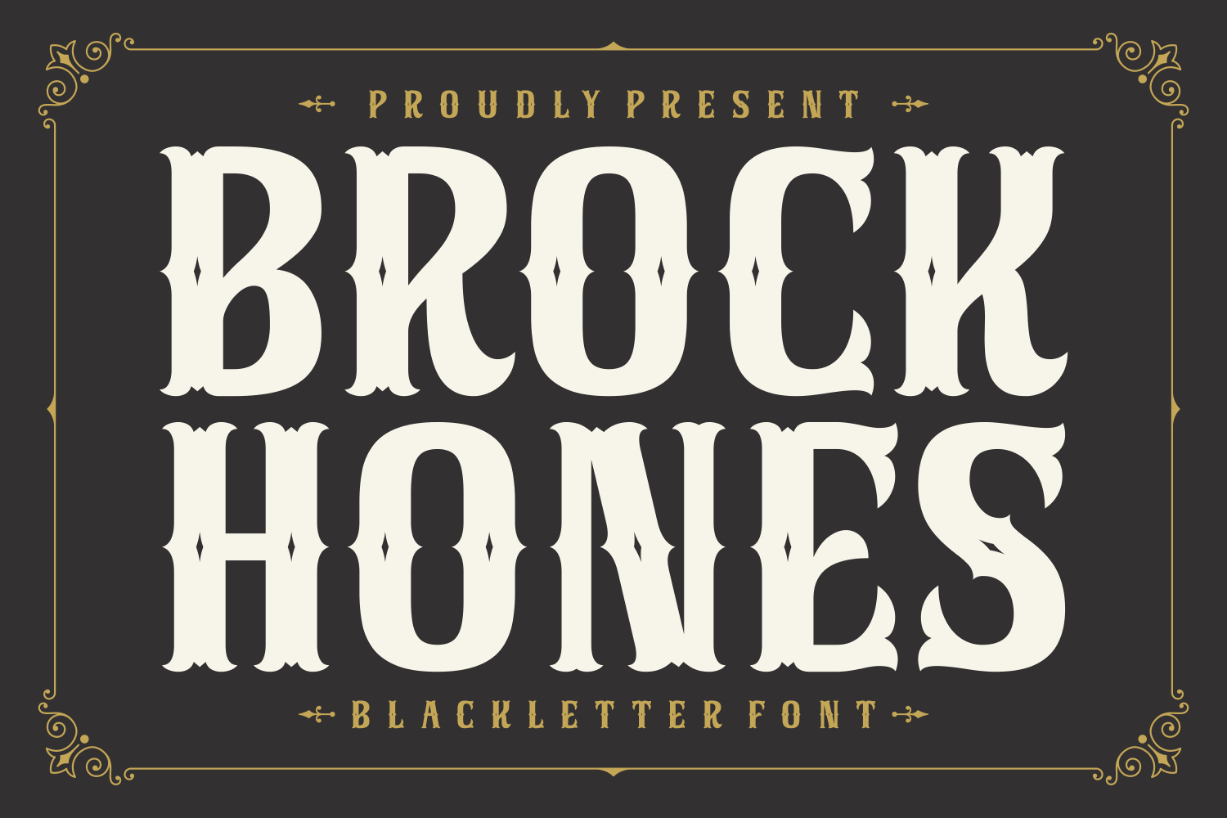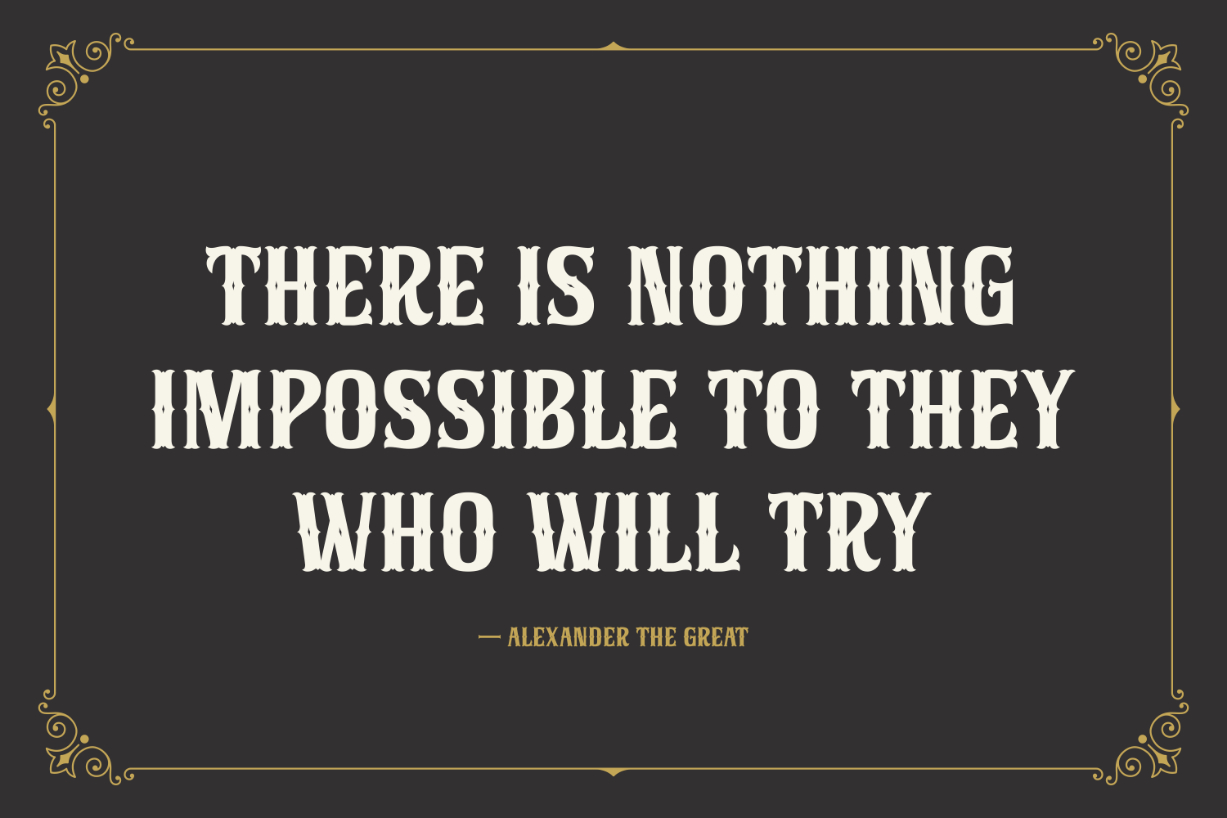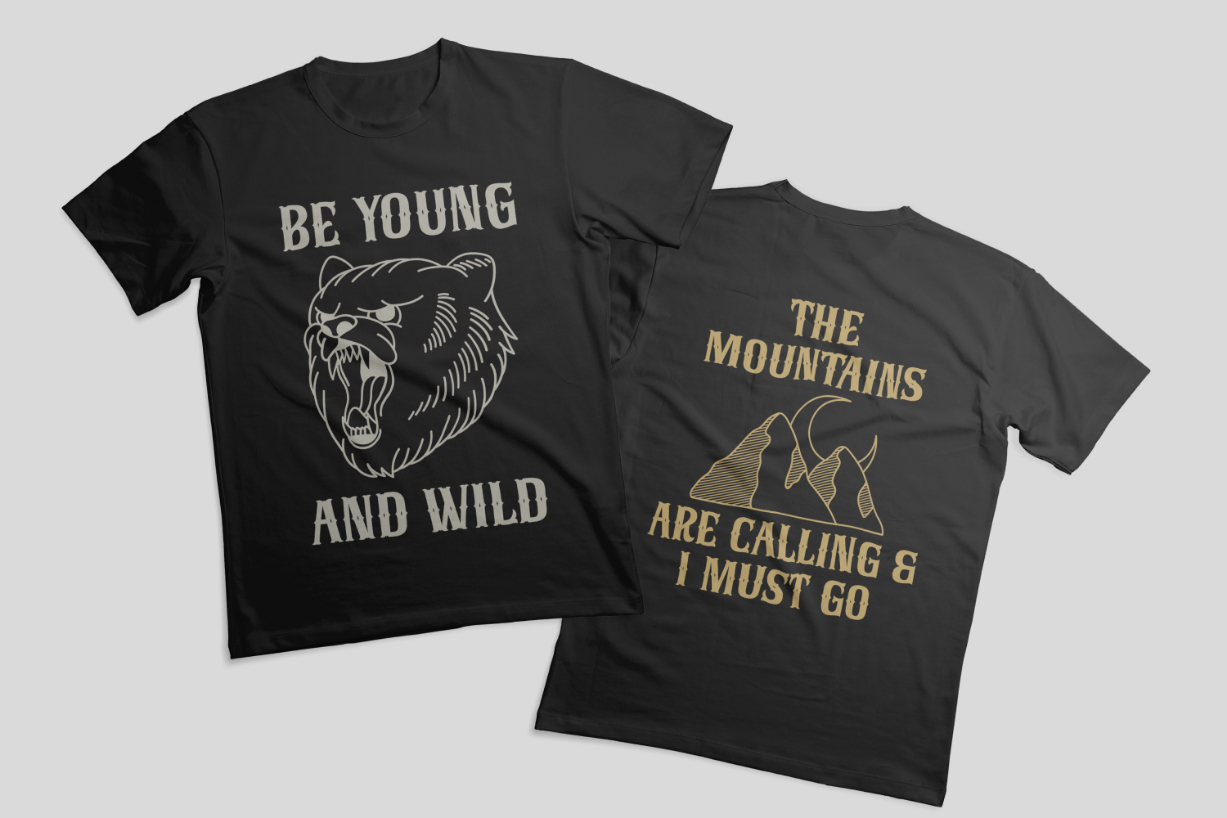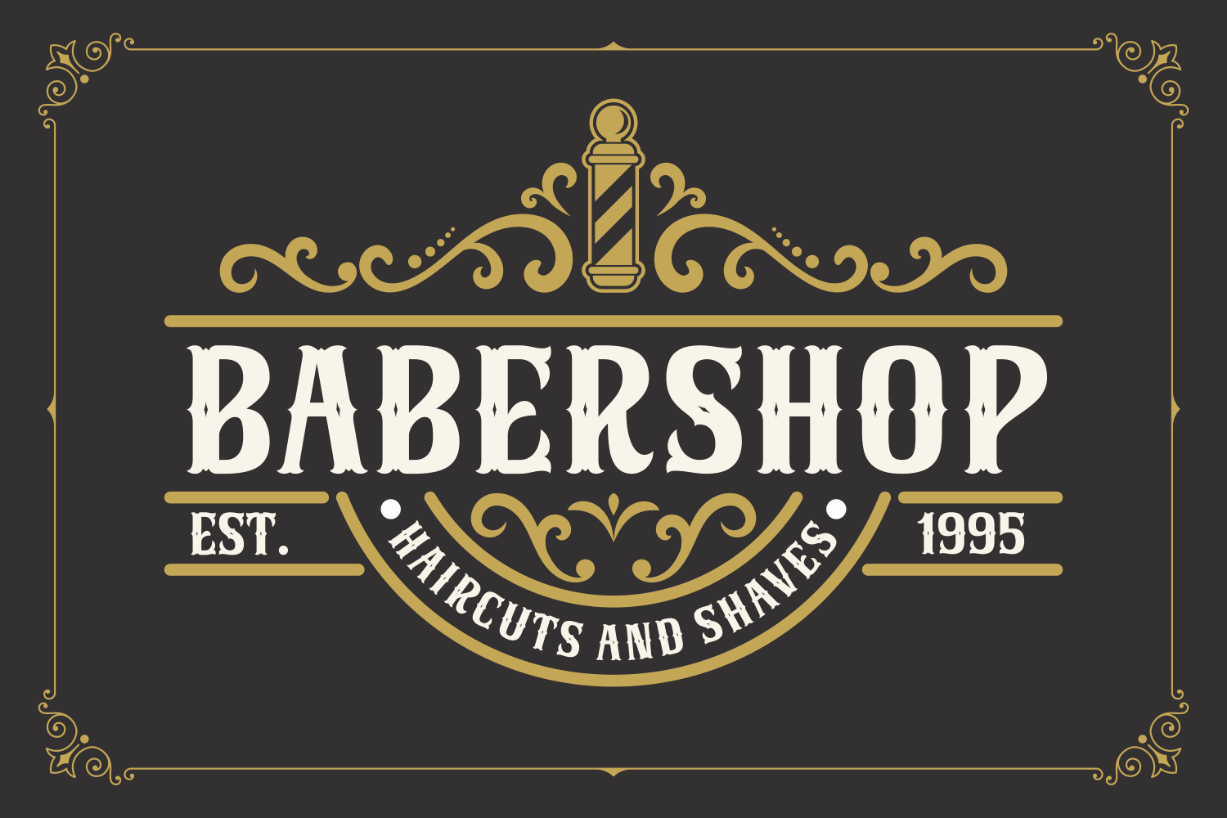
Brock Hones Font
About Brock Hones Font
Brock Hones is an impressive blackletter font. Embellished with decorative elements, this stunning set of characters is perfect for creating remarkable typography. Whether you’re using it for branding projects, advertisements, posters, or t-shirts, this typeface is sure to captivate everyone’s attention!